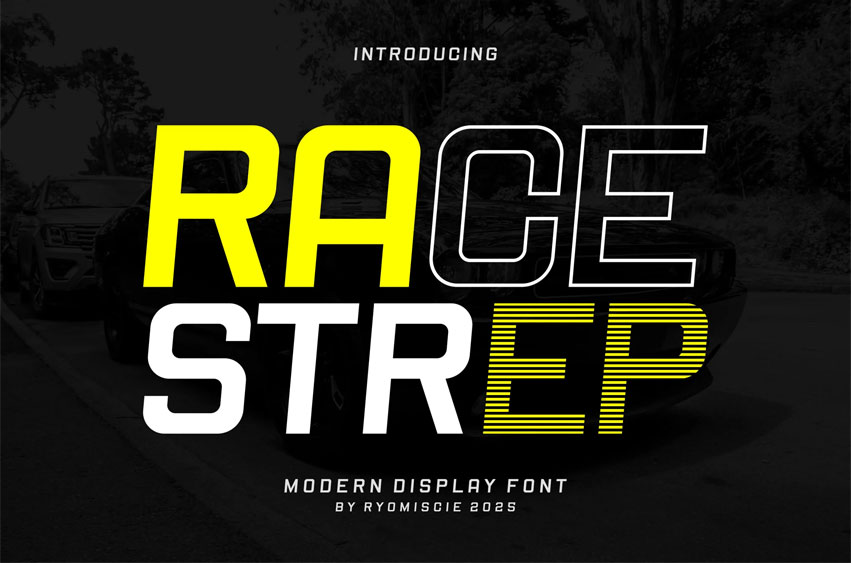
Race Strep Font
Race Strep Font Modern Font is a bold and authentic display font. The font is suitable for various branding projects, including logos, posters, and more.
• Race Strep Uppercase
• Race Strep Alternate